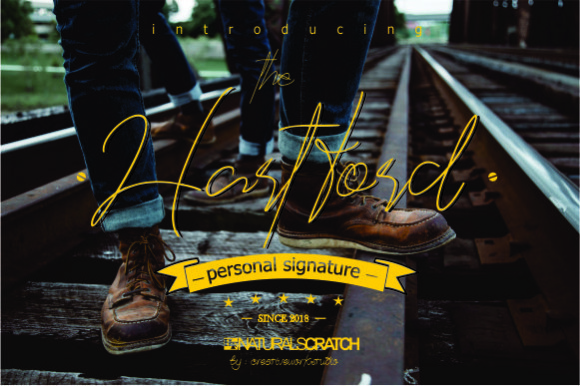
The Hartford Font
About The Hartford Font
The Hartford is a signature style font with natural hand scratches. It can be applied for various purposes such as product brands, logos, store boards, invitation cards, embossed letters, web titles, magazine headers, book titles and various product and company promotion needs.